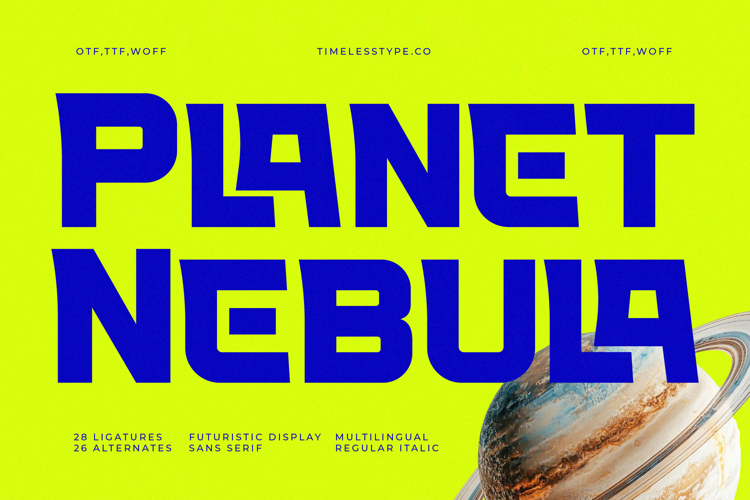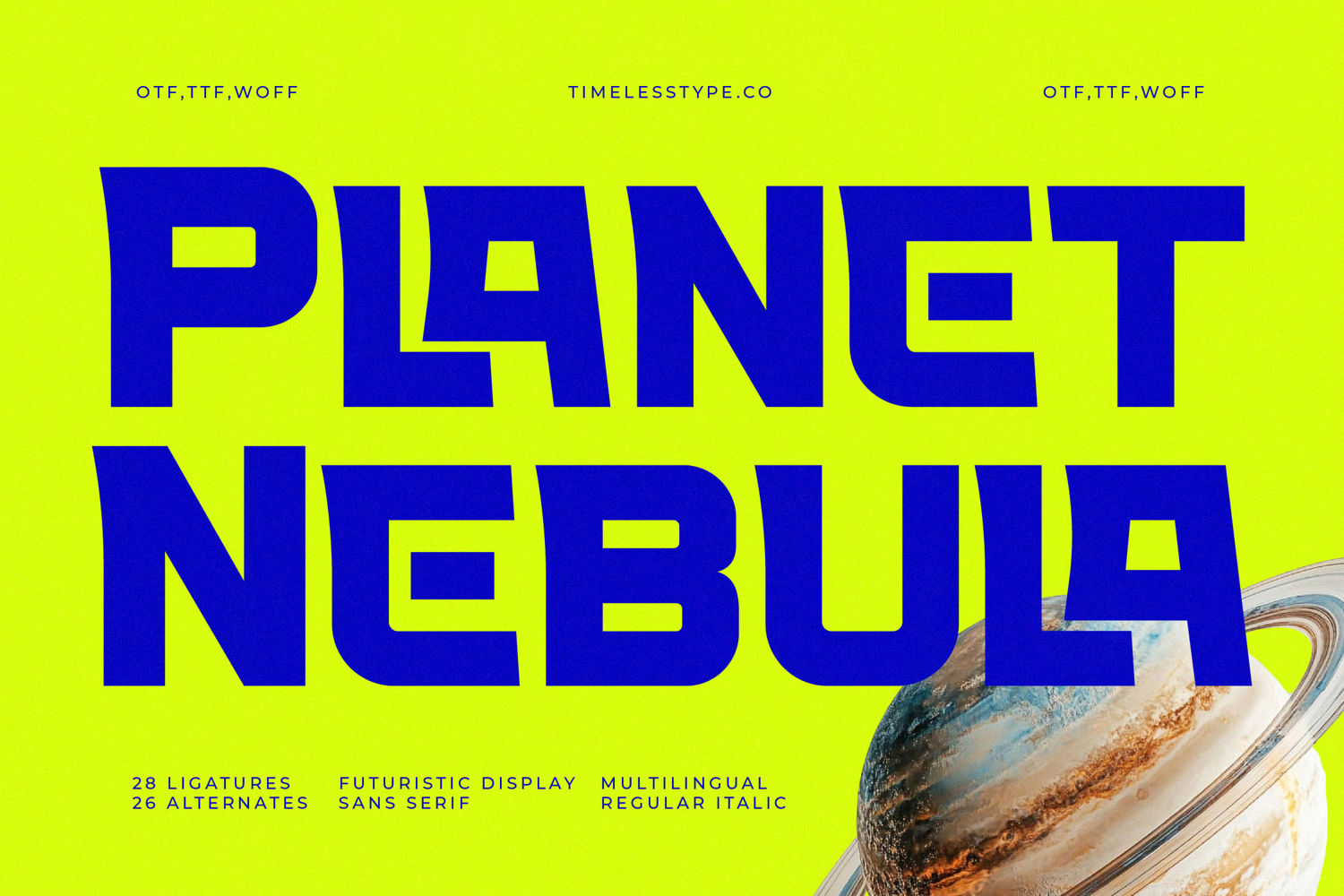
Planet Nebula - Futuristic Display Sans Serif
Elevate your designs to a new dimension with Planet Nebula - Futuristic Display Sans Serif, a typeface engineered to command attention. This bold, geometric sans serif exudes a profound sense of innovation and forward-thinking design. Its robust structure and distinctive character shapes make it an undeniable centerpiece for any project demanding a strong, modern aesthetic. Perfect for headlines and impactful statements, Planet Nebula - Futuristic Display Sans Serif immediately signals sophistication and a vision for the future.
Discover unparalleled creative flexibility within every character of Planet Nebula - Futuristic Display Sans Serif. Crafted with precision, its sharp lines and balanced negative space ensure exceptional legibility and a powerful visual presence even at large scales. With 28 ligatures and 26 alternates, this font empowers designers to create truly unique and customized typographic compositions, adding a layer of subtle complexity to its otherwise minimalist, futuristic appeal.
Break through linguistic barriers effortlessly with the global reach of this exceptional typeface. With its extensive multilingual support, Planet Nebula - Futuristic Display Sans Serif adapts seamlessly across global markets, making it incredibly versatile for international projects. This ensures your message maintains its intended impact and professionalism, regardless of the target audience or language, truly showcasing its global adaptability.